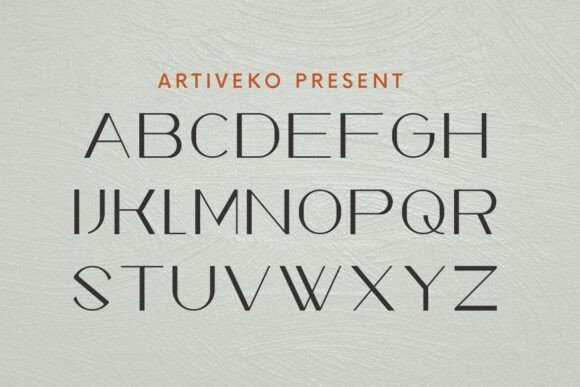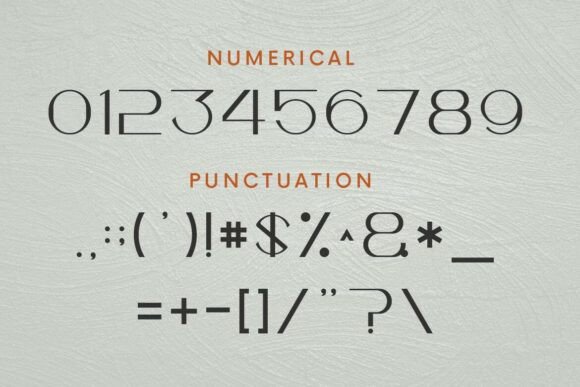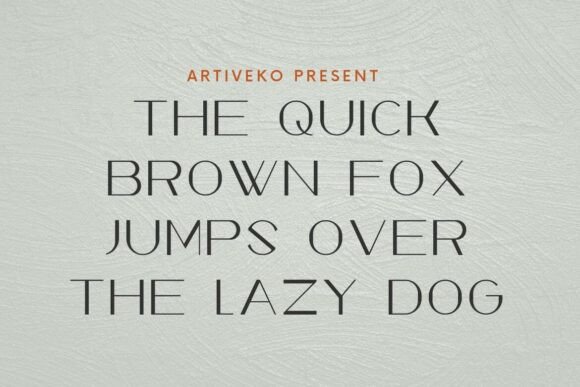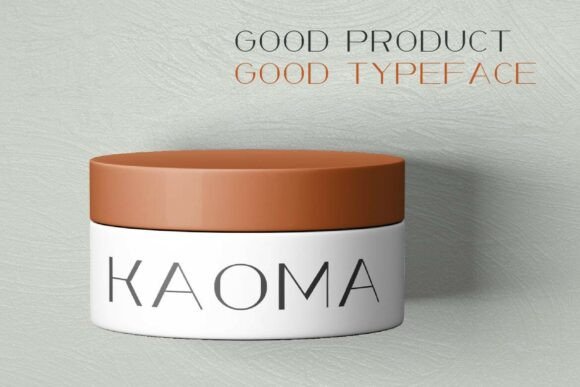
Introduction to Kaoma Font
Kaoma is a sleek sans serif font designed for those who appreciate simplicity done right.
With its clean lines, even spacing, and balanced proportions, Kaoma delivers a calm, confident tone that works beautifully across modern branding, editorial design, UI/UX, product packaging, and lifestyle content .
Key Features of Kaoma Font
Why Choose Kaoma Font?